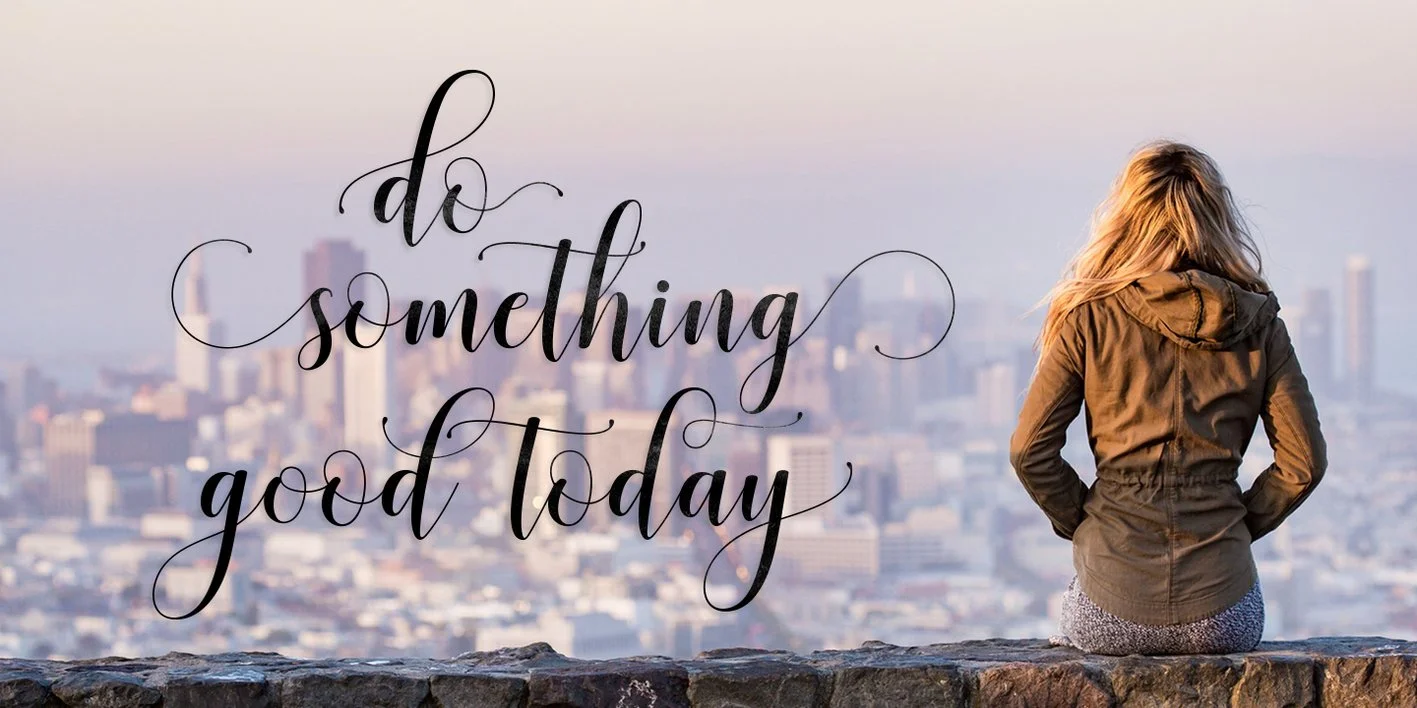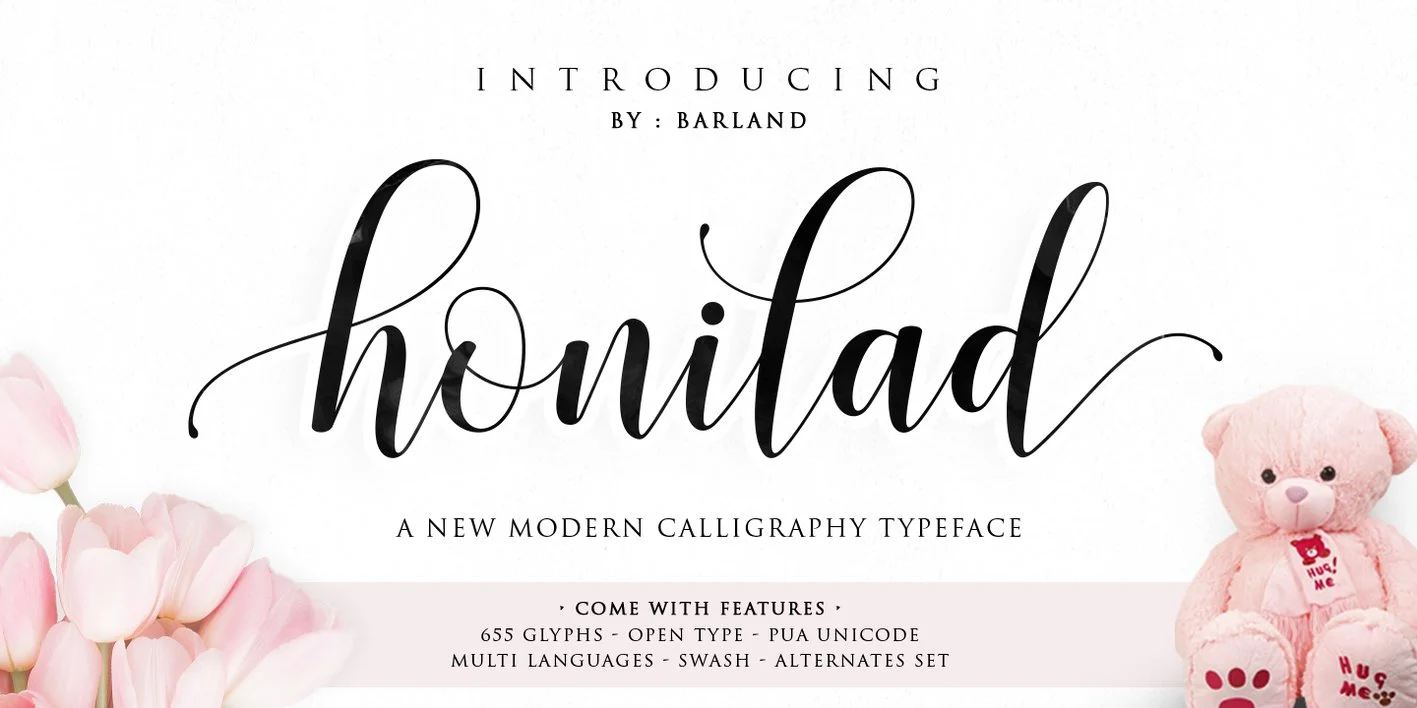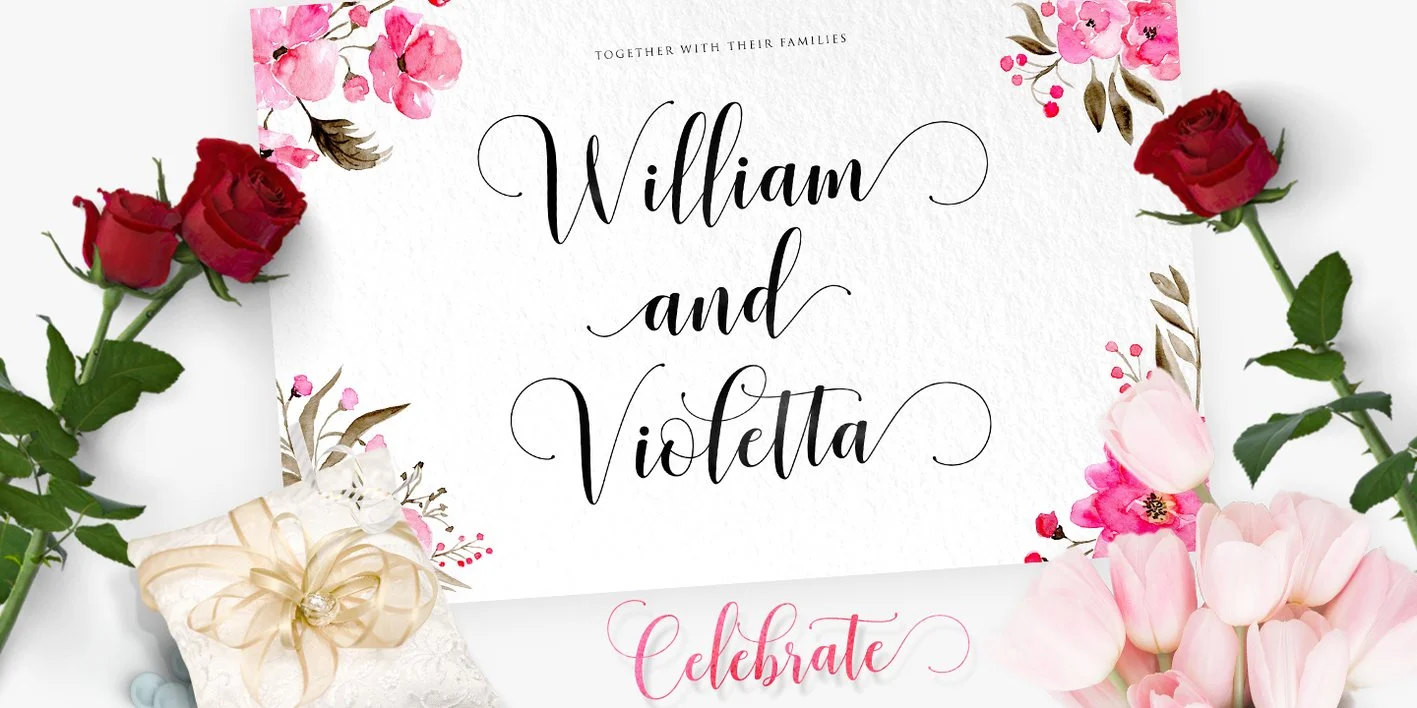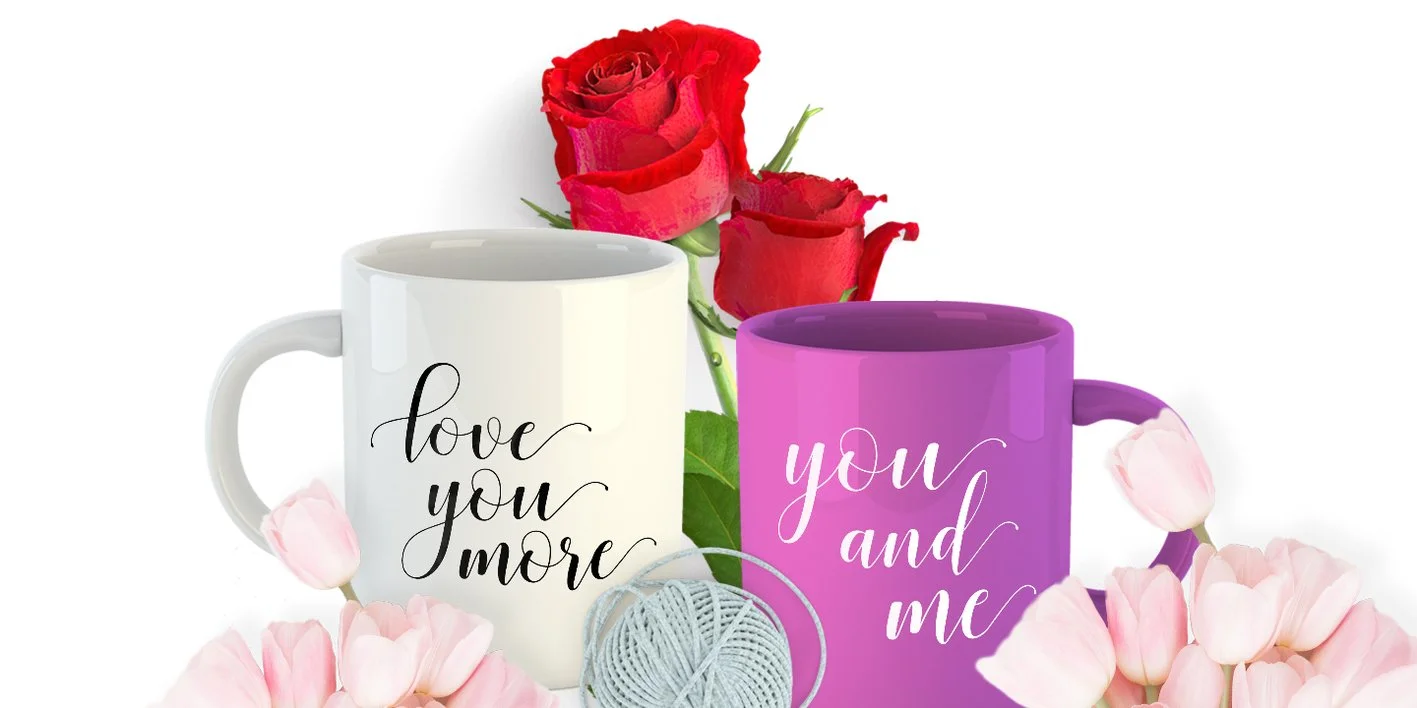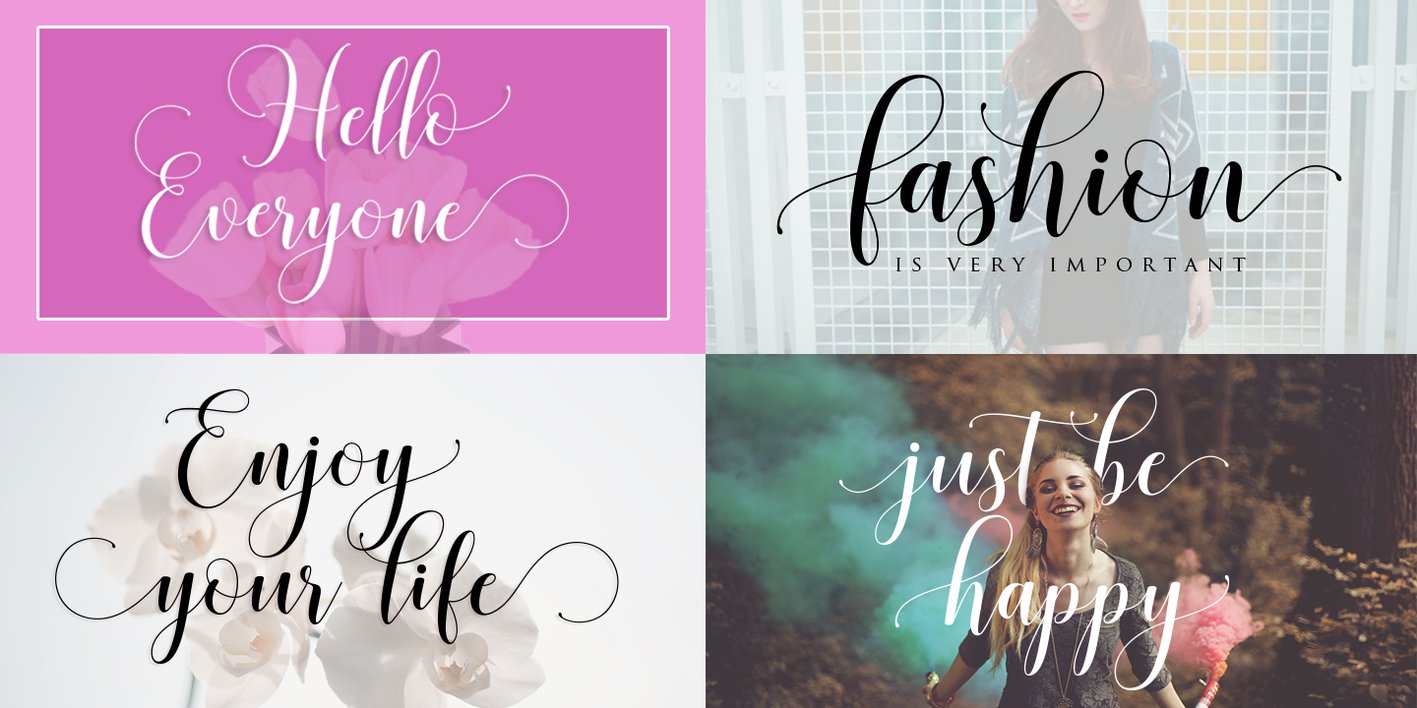
Honilad Script Font
Honilad Script Font excels in honey farm branding, organic bee product packaging, natural sweetener labels, artisanal confectionery shops, golden harvest festivals, sweet treat bakeries, natural health product designs, countryside meadow tourism, bee conservation campaigns, and authentic farm-to-table restaurant menus. This sweet typeface brings golden warmth and natural sweetness to any honey-inspired design project.
Honilad Script Font is exciting because it captures the golden sweetness and natural harmony of honey production, featuring flowing script letterforms that evoke the gentle curves of honeycomb patterns and the liquid gold beauty of pure honey flowing from the hive. Its organic character instantly conveys natural purity, artisanal quality, and the sweet abundance of nature's golden treasure.
Honilad Script Font family includes Regular weight with honey-inspired alternates, flowing swashes, bee-themed ornamental elements, and golden decorative glyphs that enhance the natural aesthetic, providing artisanal designers with sweet tools for creating typography that celebrates the liquid gold beauty and natural sweetness of honey production.
Honilad Script Font offers artisanal food producers access to one of the most authentically honey-inspired typefaces available for natural product design applications. This exceptional font has gained recognition among organic farms, honey producers, and natural food brands for its ability to communicate natural sweetness and artisanal quality through typography that embodies the golden beauty of pure honey.
Natural food designers love Honilad Script Font for its exceptional ability to evoke honey themes and create immediate associations with natural sweetness through carefully crafted letterforms. The font's flowing character and golden details create instant connections with bee gardens, honey harvests, and the pure natural sweetness that makes honey one of nature's most treasured gifts to culinary traditions worldwide.
The design inspiration behind Honilad Script Font draws from honeycomb patterns, beekeeping traditions, and the rich golden colors of pure honey, making it particularly effective for organic food brands, natural health products, and artisanal confectionery businesses seeking to establish authentic connections with natural sweetness and bee conservation. Agricultural teams working on honey products find this font essential.
Whether used for organic honey farms, natural confectionery shops, or bee conservation organizations, Honilad Script Font delivers the perfect combination of natural authenticity and golden sweetness. Its honey appeal and artisanal charm make it an indispensable choice for brands that celebrate natural sweetness, bee conservation, and the liquid gold beauty of pure, artisanal honey production.